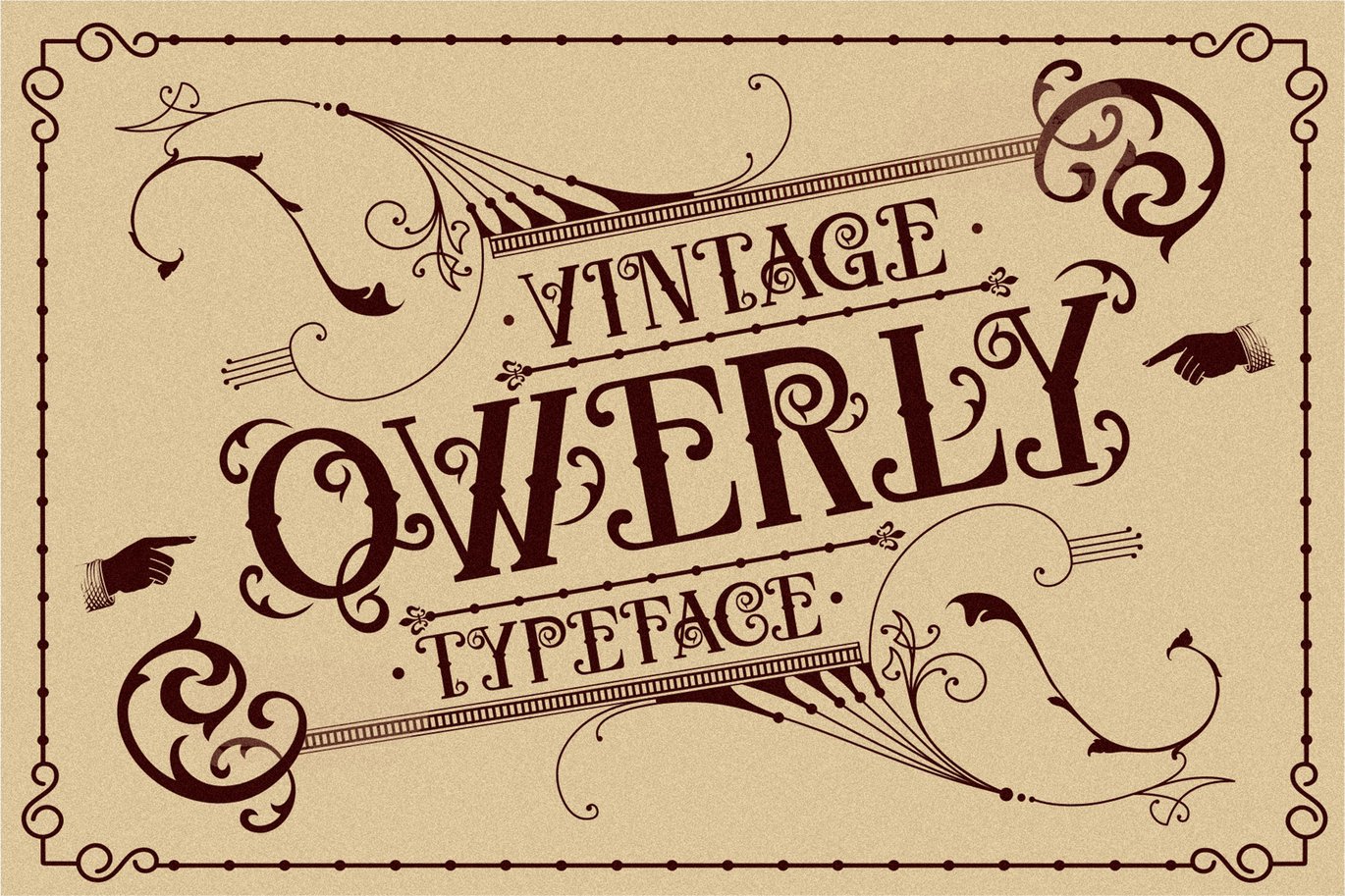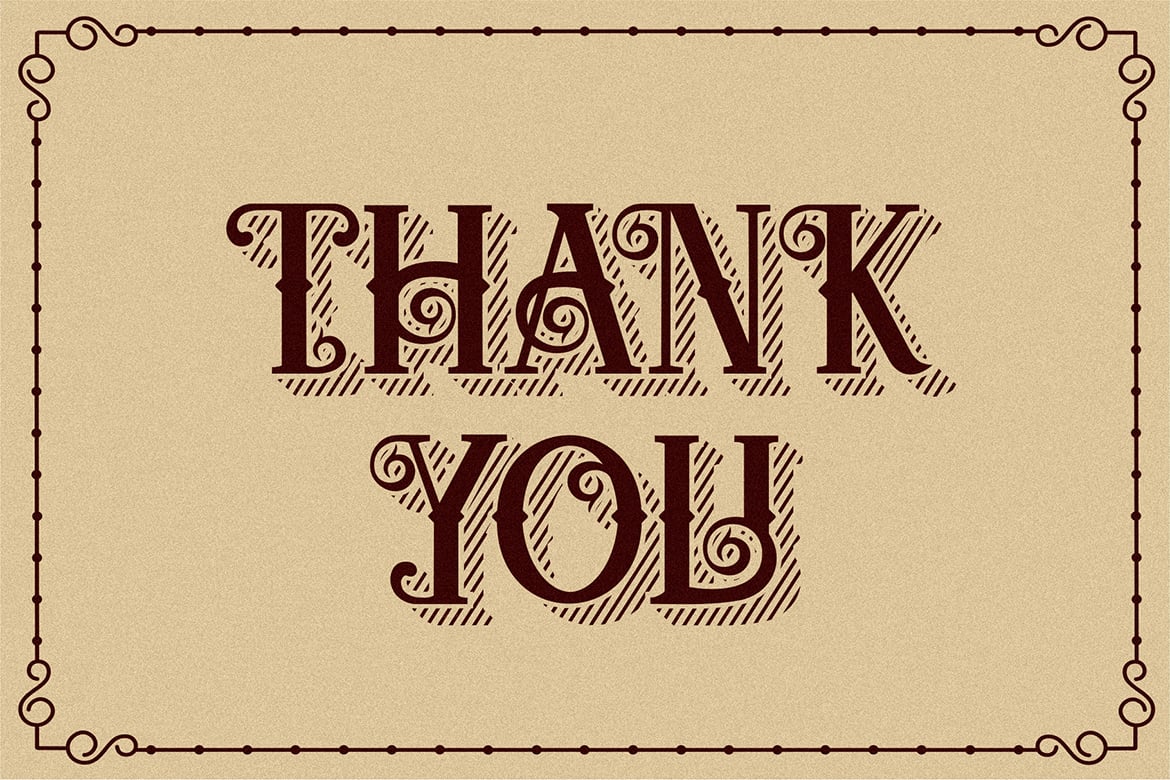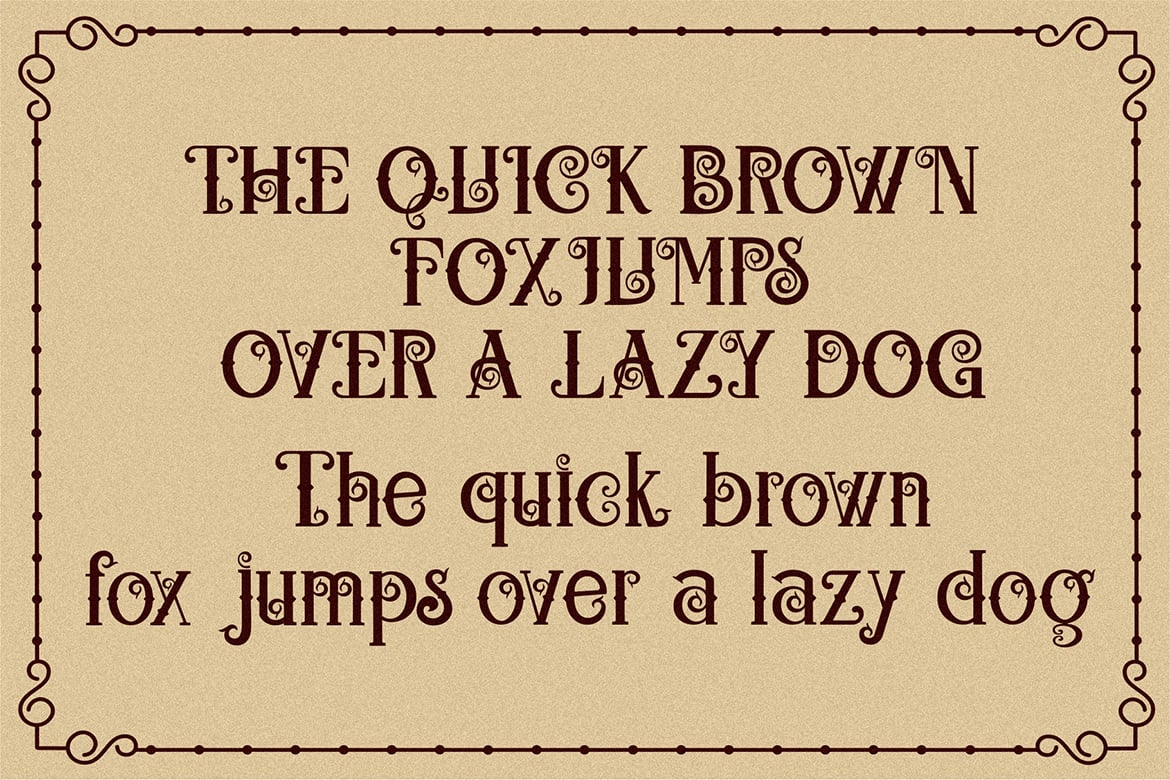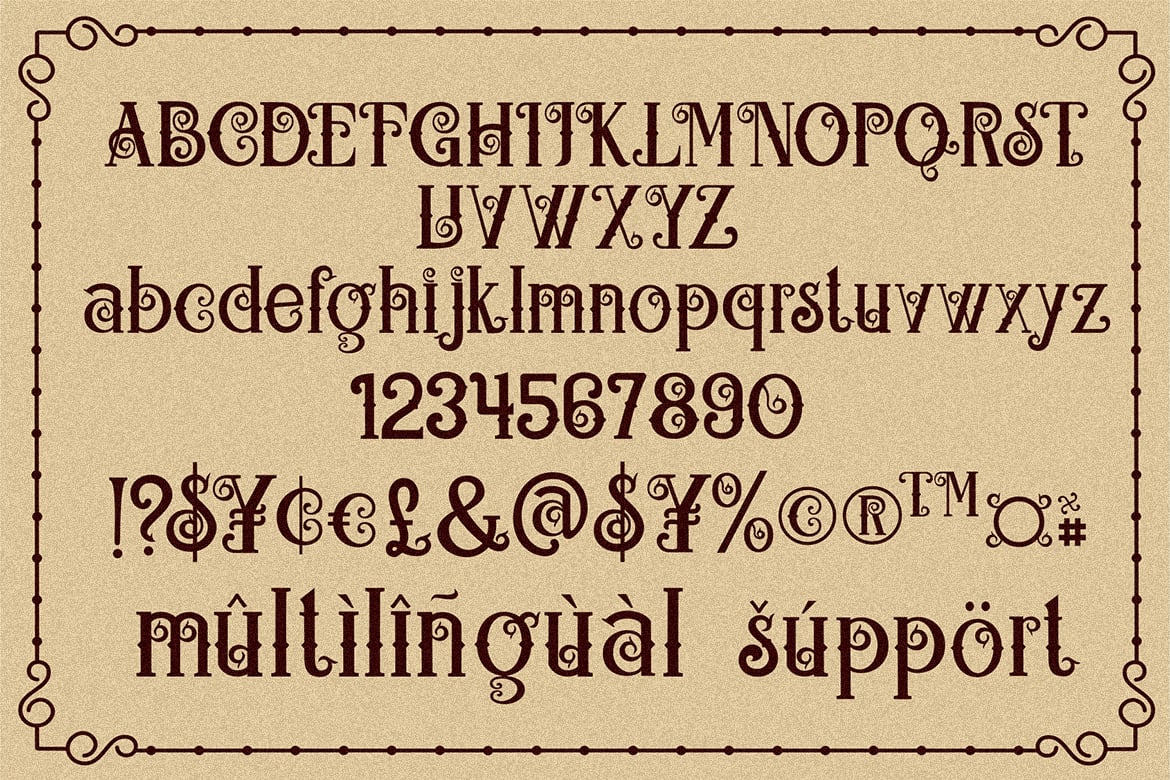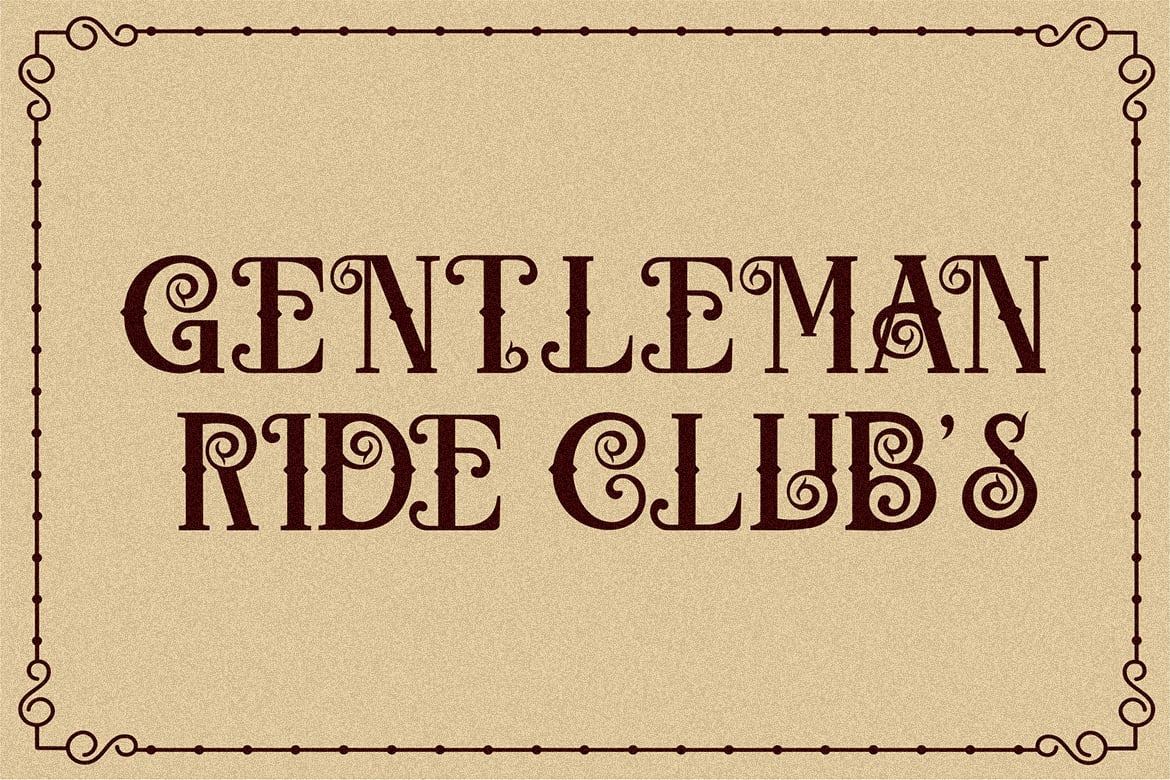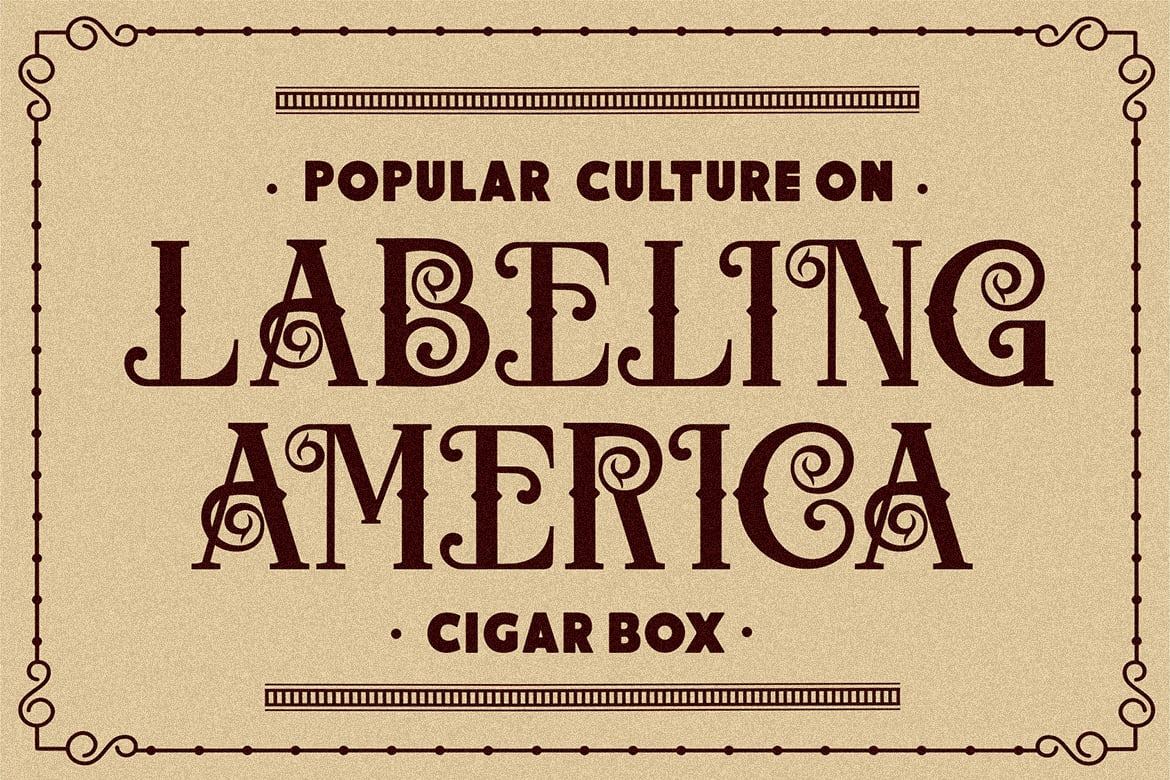
Qwerly Vintage Font
Qwerly fonts is a brand new font with a vintage look and style.
qwerly font inspired by the old newspaper headline lettering, the classic posters,and back to the 1900’s. Use it however you see fit enjoys!
This font was created for designing covers, labels, posters, logos, branding, etc that need a vintage design feel.